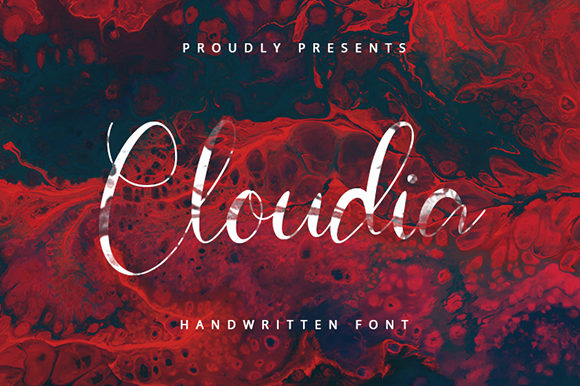
Discover the Charm of Cloudia Font: A Fun and Sweet Handwritten Delight
Are you tired of using the same old fonts in your designs? Look no further than Cloudia Font, a fun and sweet handwritten font that’s sure to add a playful vibe to your projects. With its unique charm and whimsical feel, Cloudia is the perfect choice for designers and crafters looking to add a touch of personality to their work.
What is Cloudia Font?
Cloudia Font is a handwritten font that’s been designed to capture the essence of a carefree and playful spirit. Its sweet and charming letterforms are perfect for a wide range of design projects, from invitations and greeting cards to social media graphics and branding materials.
Key Features of Cloudia Font
- Handwritten with love: Cloudia Font is a true handwritten font, crafted with love and care to give it a personal and unique feel.
- Playful vibe: With its bouncy and irregular letterforms, Cloudia Font is guaranteed to add a playful touch to your designs.
- Unique charm: Cloudia Font has a distinctive charm that’s sure to set it apart from other fonts.
- Versatile: Whether you’re designing for print or digital, Cloudia Font is the perfect choice for a wide range of projects.
Why Use Cloudia Font?
So why choose Cloudia Font for your next design project? Here are just a few reasons why:
- Add a personal touch: With Cloudia Font, you can add a personal and human touch to your designs, making them more relatable and engaging.
- Stand out from the crowd: Cloudia Font’s unique charm and playful vibe are sure to make your designs stand out from the crowd.
- Perfect for creative projects: Whether you’re working on a craft project, designing a logo, or creating social media graphics, Cloudia Font is the perfect choice.
How to Use Cloudia Font
Using Cloudia Font is easy! Here are a few tips to get you started:
- Pair with bold fonts: Cloudia Font pairs perfectly with bold, sans-serif fonts for a striking contrast.
- Use for headings and titles: Cloudia Font is perfect for headings and titles, adding a touch of personality to your designs.
- Experiment with colors: Cloudia Font looks great in a wide range of colors, from bright and bold to soft and pastel.
Cloudia Font in Action
So what does Cloudia Font look like in action? Here are a few examples of how you can use Cloudia Font in your designs:
- Invitations and greeting cards: Cloudia Font is perfect for creating custom invitations and greeting cards for special occasions.
- Social media graphics: Add a playful touch to your social media graphics with Cloudia Font.
- Branding materials: Use Cloudia Font to create unique and memorable branding materials, such as logos and business cards.
| Font Name | Cloudia Font |
| Author | Justlett |
In conclusion, Cloudia Font is a fun and sweet handwritten font that’s sure to add a playful vibe to your designs. With its unique charm and whimsical feel, Cloudia is the perfect choice for designers and crafters looking to add a touch of personality to their work. So why not give Cloudia Font a try and see the difference it can make in your designs?
Get Inspired by Cloudia Font
Get inspired by the unique charm of Cloudia Font and take your designs to the next level. Try Cloudia Font today and discover a world of creative possibilities!